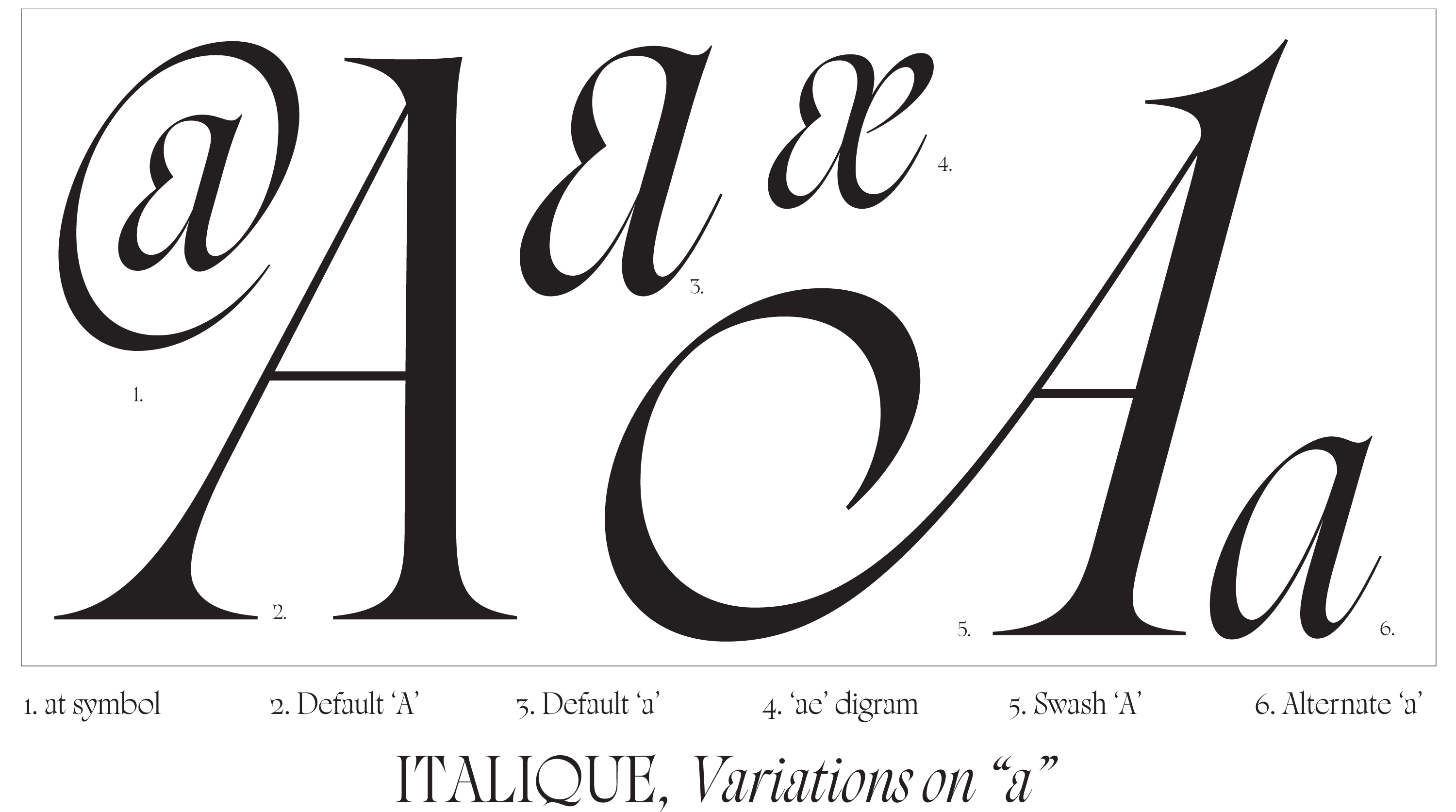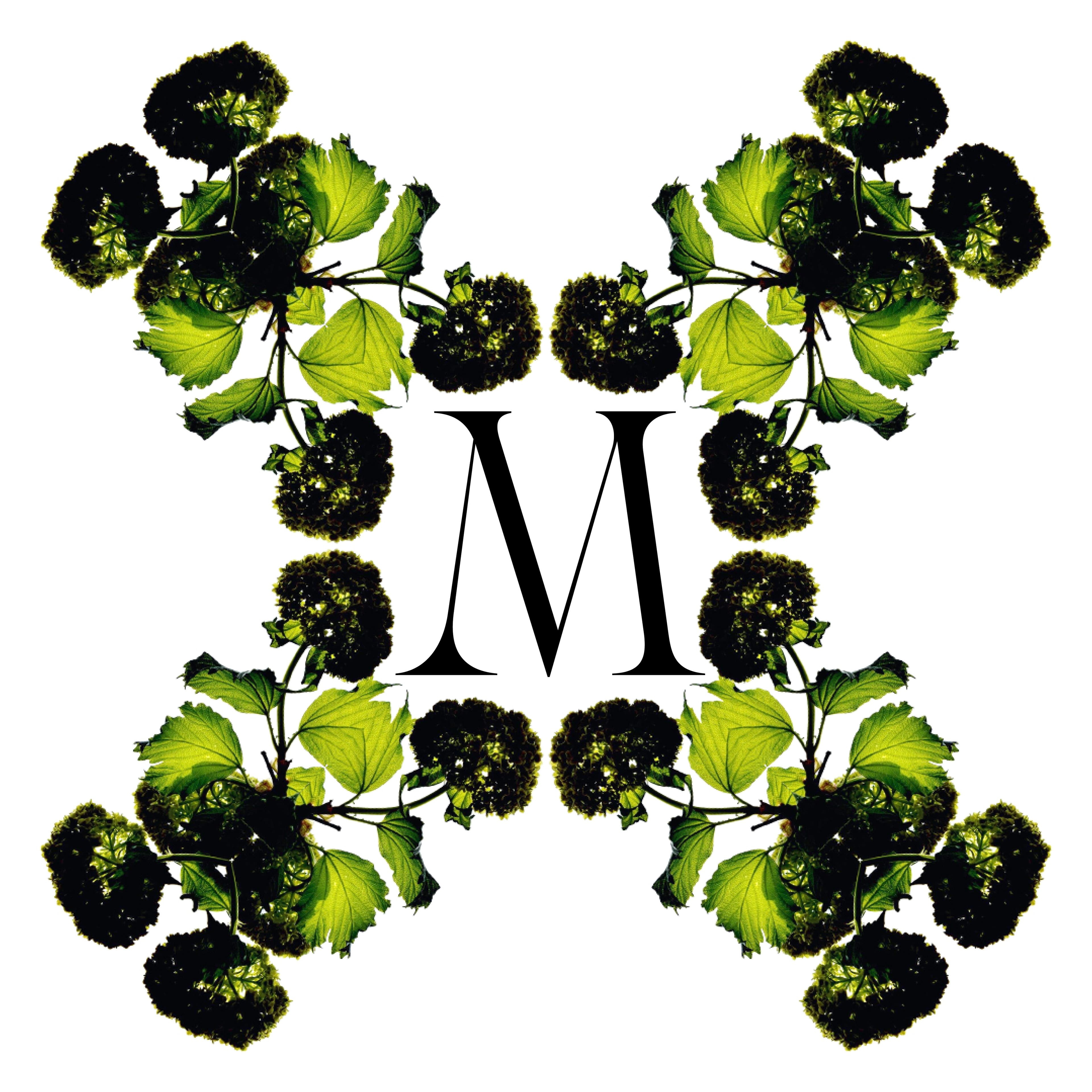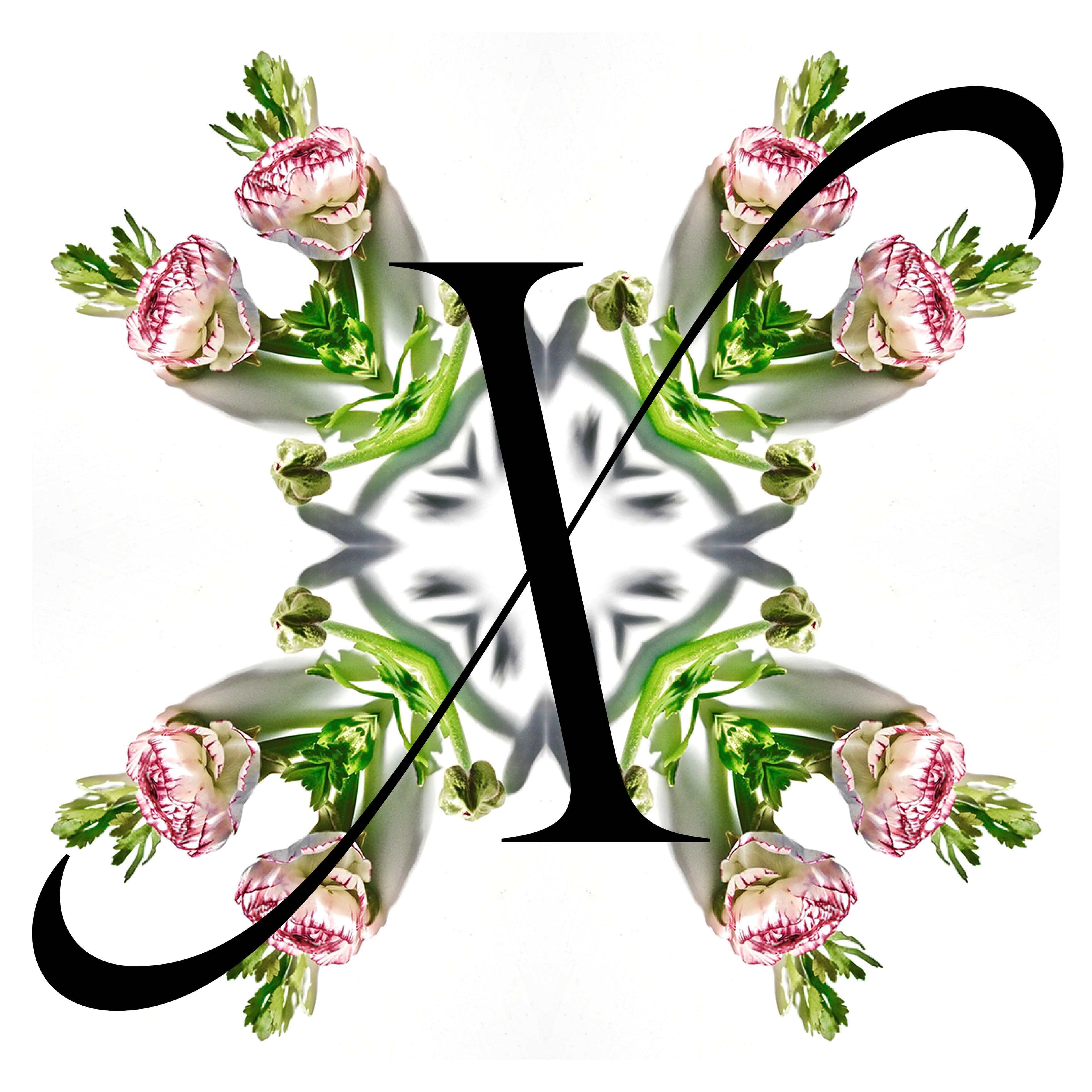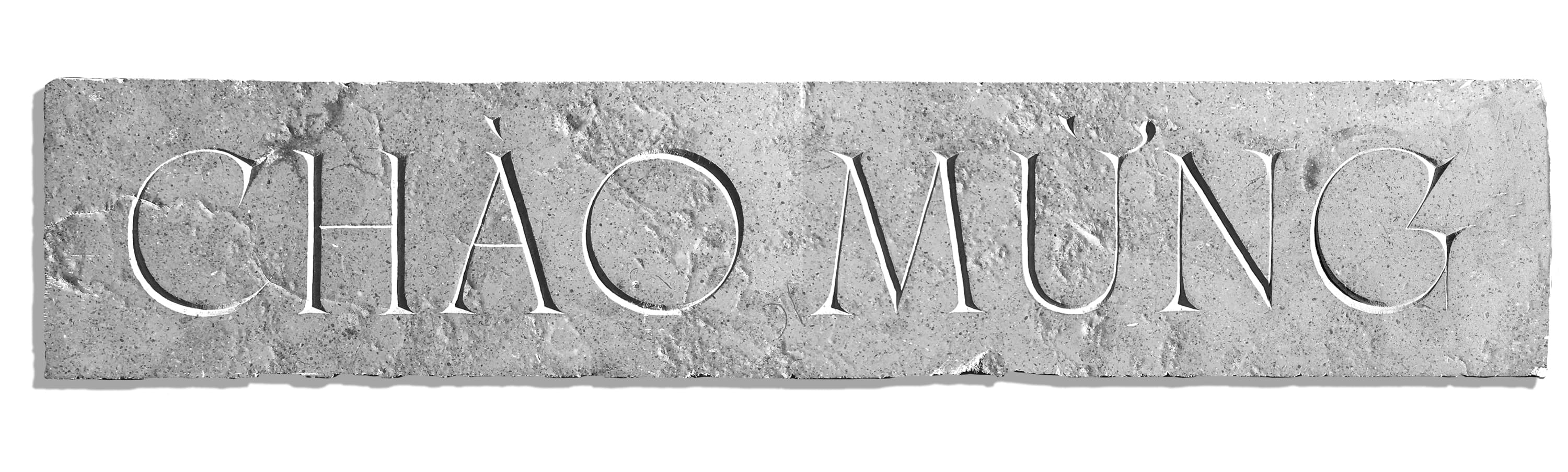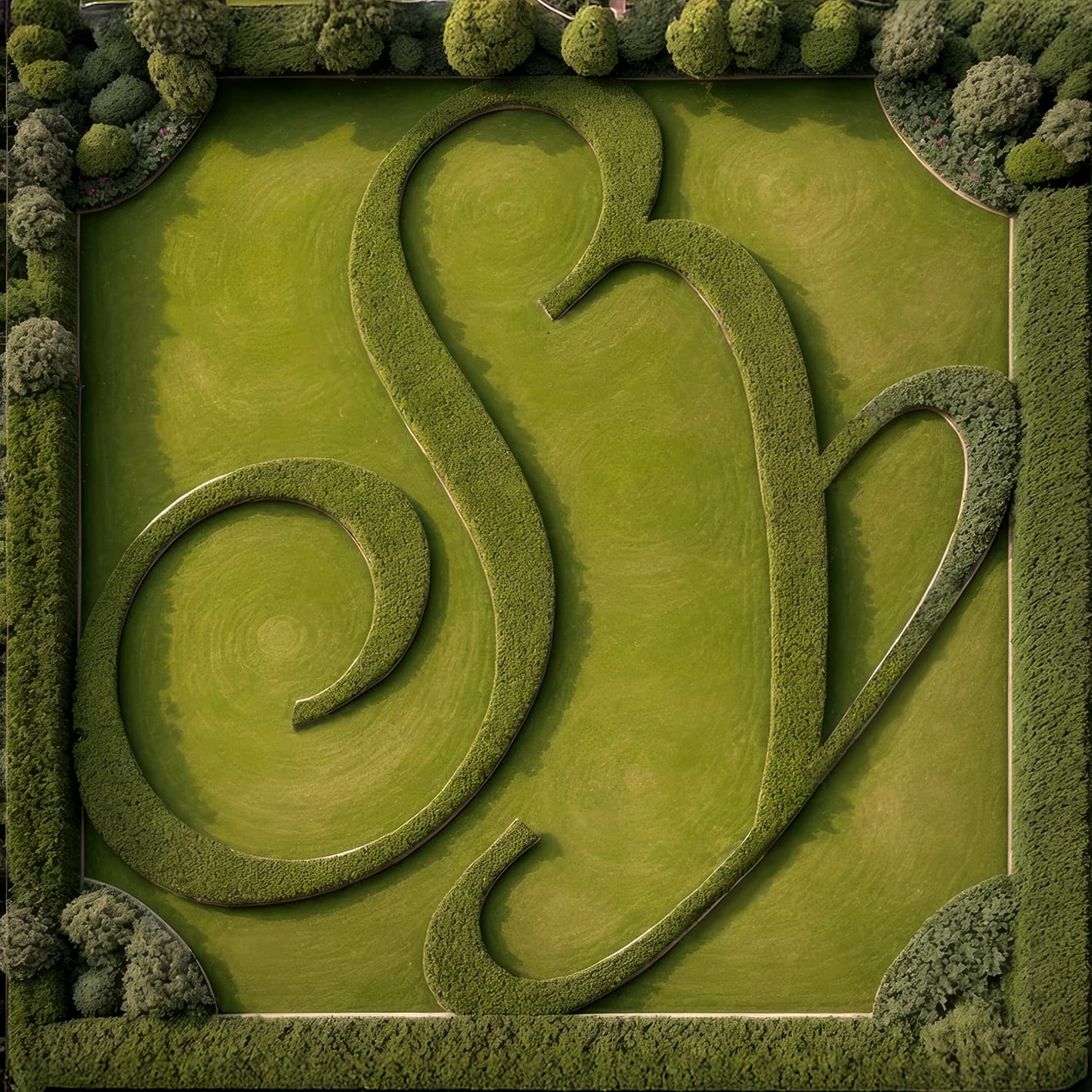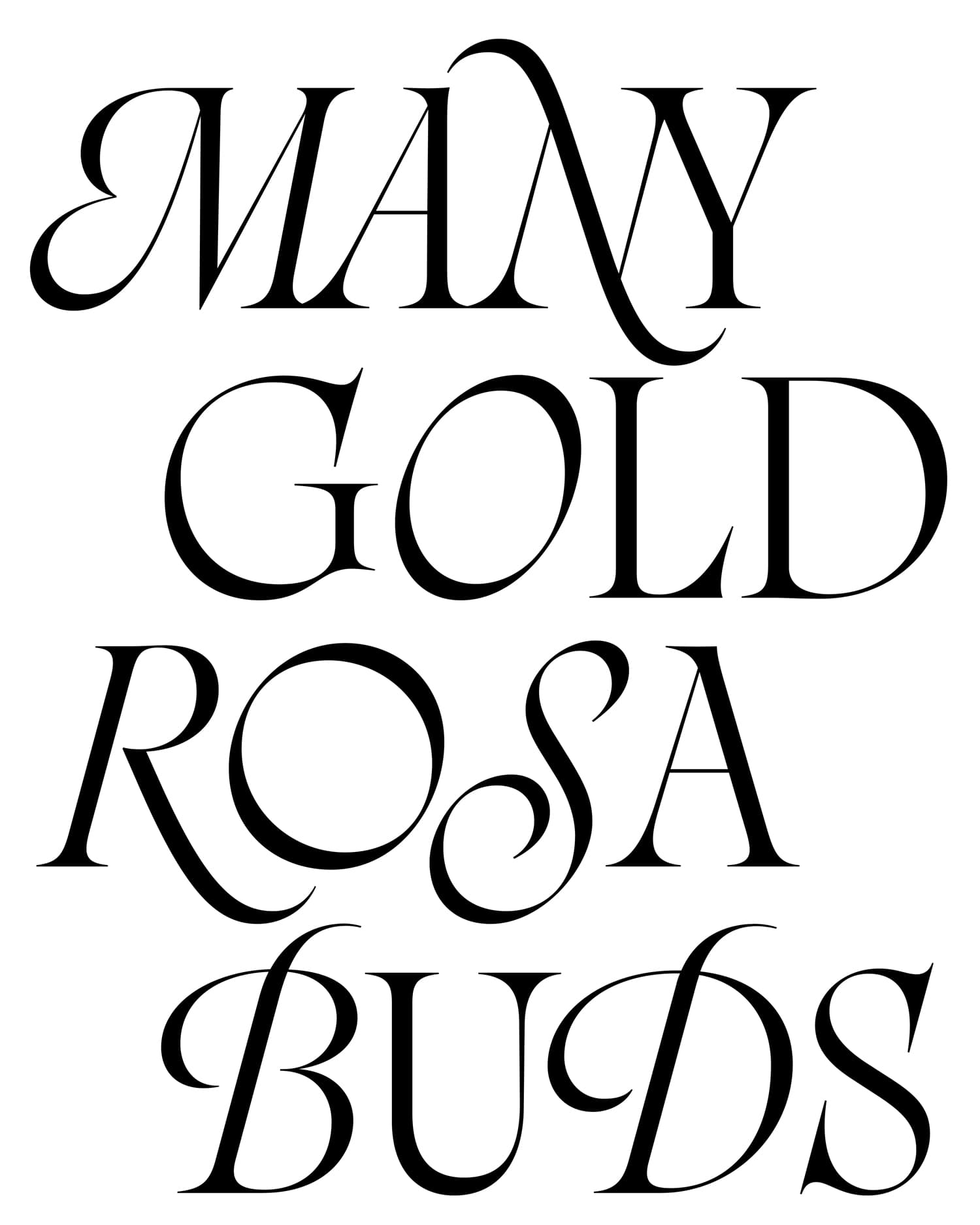
Rosalie
Rosalie is a contemporary display serif by My-Lan Thuong, born from a medieval mural in Guérande, France. Rosalie is a study in polarities; it is both sharp and round, calligraphic and constructed, historic and futuristic, narrow and wide. With its unusual proportions and exuberant swashes, high contrast, and innovative shapes, Rosalie contains a unique mix of simultaneously complimentary and contradictory forms. The typeface’s development tracks the creative evolution of Thuong’s type design practice through many years of development. After 6 years in the making, Rosalie is now available as a duo of complementary Roman and Italic styles, both including OmniLatin language support.
Designer: My-Lan Thuong | Engineers: Calvin Kwok & Glenda Bellarosa | Kerning: Igino Marini
Early stone carving of Rosalie by My-Lan Thuong